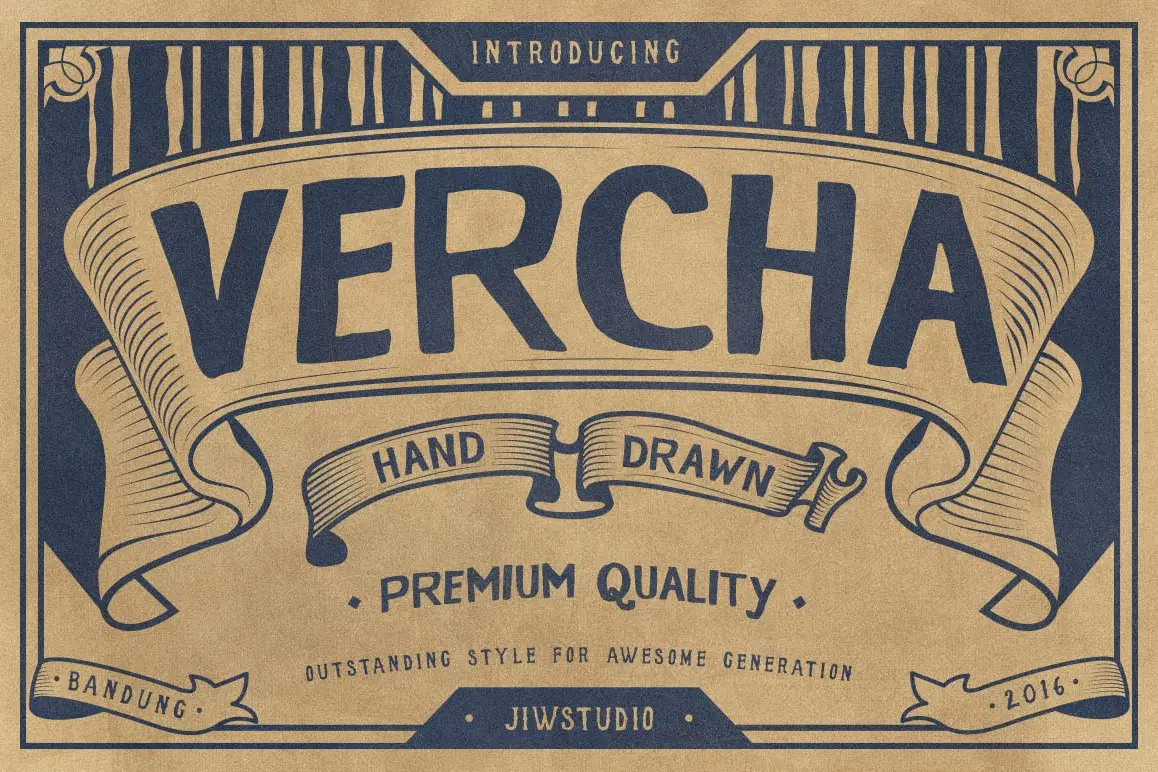
Vercha is handmade typeface style that inspired from labels denim jeans. Designed to help you create the look of stunning custom hand-lettering.
Vercha typeface is very best choice fonts for : Badges, labels, Hang Tag, Posters, Logos, Print Ads, Digital Ads, Promotion Product, t-shirt, etc